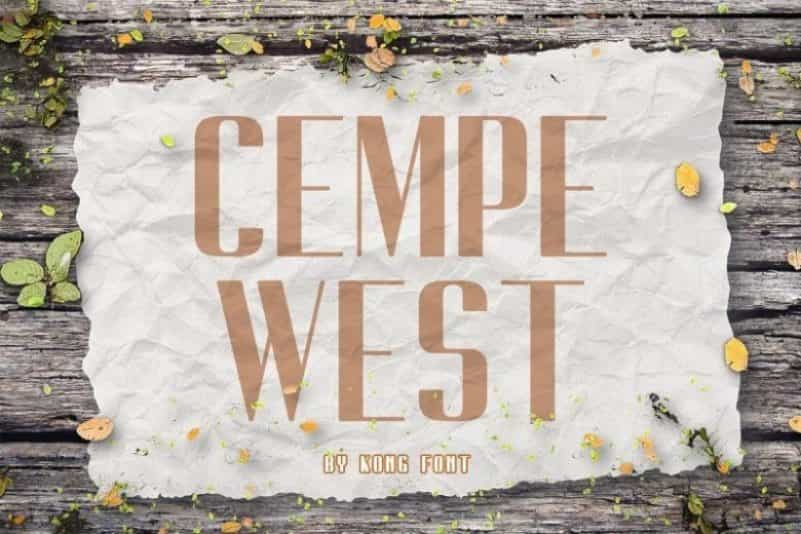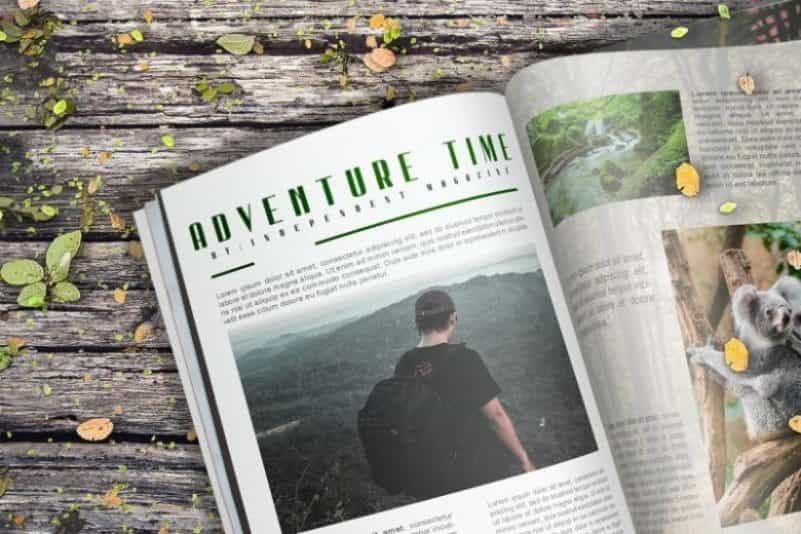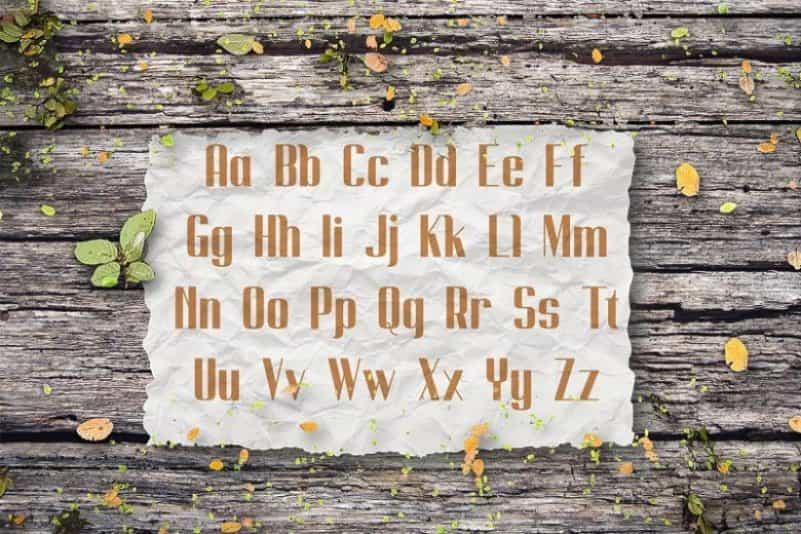
The Cempe West Font is an elegant and classic all-caps sans serif that looks fantastic in any surroundings. A beautiful font with a sharp edge and unique shapes that is used for logos, magazines, wedding invitations, quotes, advertisements, posters,, holiday cards and many other things. Moreover, you can use Cempe West even in different languages to have more options for your type projects.